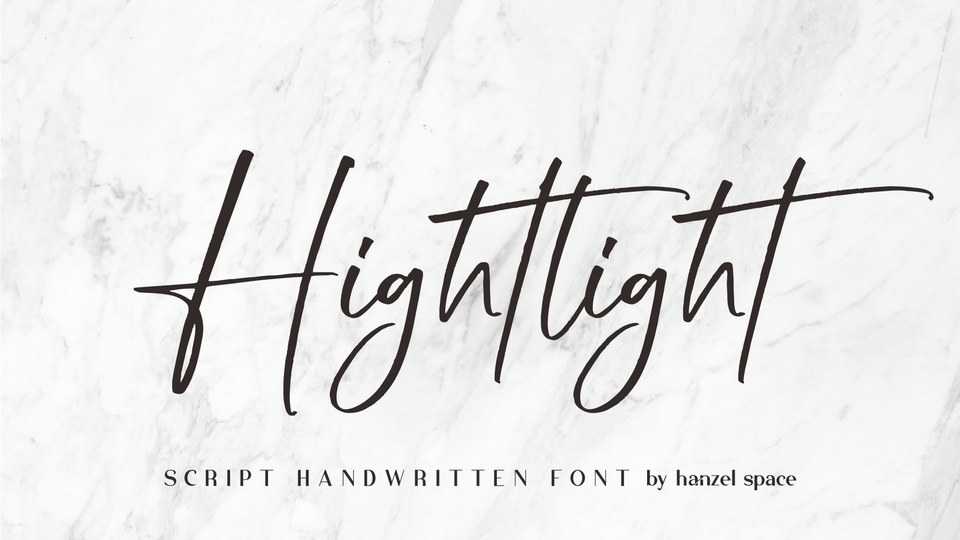
Download Hightlight font, a relaxed handwritten signature style typeface, featuring a casual and chic flair. Hightlight is perfect for branding, wedding invites, cards and so much more.